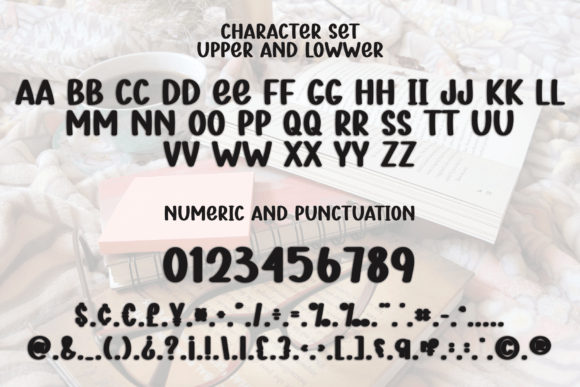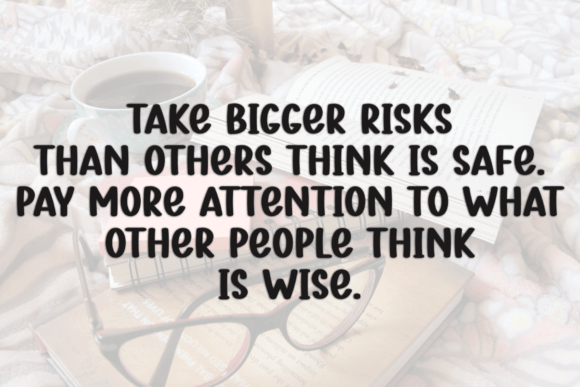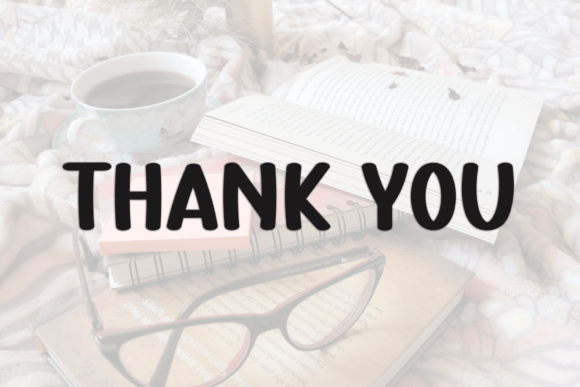
The Magic of Deadline Font: Elevate Your Holiday Designs
It’s that time of the year again – the season of joy, giving, and, for designers like us, the quest for the perfect holiday font. I still remember the year I spent hours scouring the internet for a font that would bring my client’s holiday card to life. The project had a specific theme in mind: festive, cheerful, and nostalgic. That’s when I stumbled upon Deadline Font, and it instantly became my go-to for holiday designs. In this article, I’ll share with you why Deadline Font is a game-changer for your holiday projects, its unique features, and how to make the most of it in your designs.
A First Look at Deadline Font
Deadline Font is a festive and happy typeface that captures the spirit of the holiday season. With its decorative elements and unique flair, it adds a touch of charm to your designs. This font is perfect for greeting cards, gift labels, and holiday-themed projects, bringing a cheerful and nostalgic atmosphere to your words.
My Honest Review of Deadline Font
I’ve had the pleasure of working with Deadline Font on several projects, and here’s what I think:
- ✨ Festive and Fun: Deadline Font embodies the joy and festivity of the holiday season, making it perfect for Christmas cards, Halloween decorations, or any holiday-themed project.
- ✅ Highly Versatile: Whether you’re designing for digital platforms or print, Deadline Font adapts beautifully, ensuring your designs look great across various mediums.
- 💫 Easy to Read: Despite its decorative nature, Deadline Font remains clear and readable, even at smaller sizes, which is a significant advantage for designs that require a lot of text.
However, no font is perfect, and here are a few quirks to consider:
- 🤔 Limited Use Outside Holiday Themes: While Deadline Font is amazing for holiday designs, it might not be the best choice for projects unrelated to festive themes. Its distinct style might not fit well with more formal or non-holiday projects.
- ⚠️ Requires Attention to Kerning: As with many decorative fonts, you might need to adjust the kerning manually to ensure that words and sentences look their best. This can be a bit time-consuming, especially for longer texts.
One of the exciting features of Deadline Font is its support for OpenType features, which include stylistic alternates, ligatures, and more. These features allow you to add variety and personality to your text. For example, you can:
- Access stylistic sets to change the look of your text dramatically.
- Use ligatures to combine letters for a more artistic look.
- Explore the glyph panel to find unique characters and symbols that can enhance your design.
The Story Behind Deadline Font
Deadline Font was created with the intention of capturing the magic and excitement of holiday seasons. The designer aimed to create a font that not only looked festive but also evoked a sense of nostalgia and warmth. Through its unique design elements and attention to detail, Deadline Font has become a beloved choice for designers looking to add a touch of holiday cheer to their work.
- Q: Does Deadline Font support OpenType features?
- A: Yes, Deadline Font supports various OpenType features, including ligatures and stylistic alternates, which can enhance your designs.